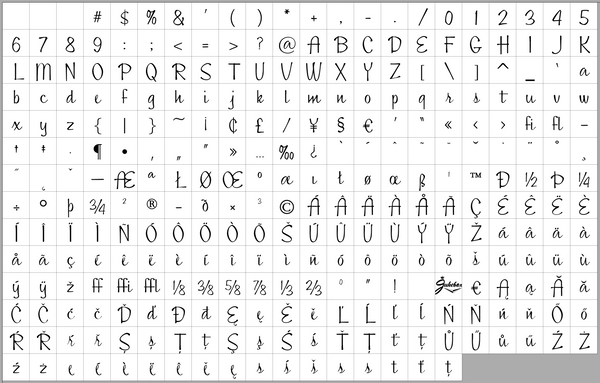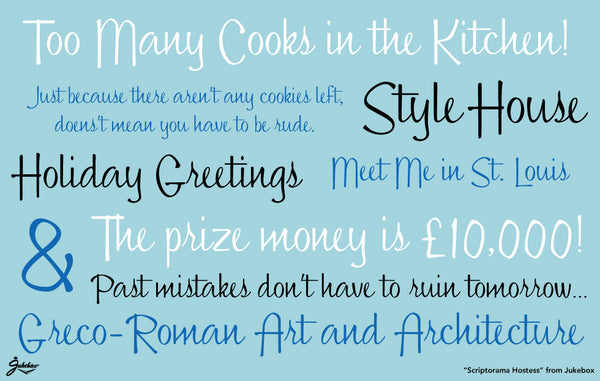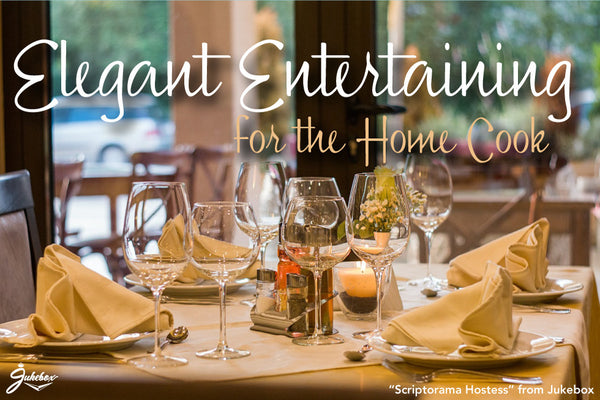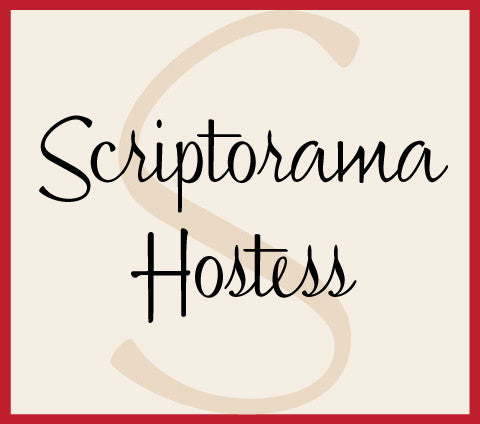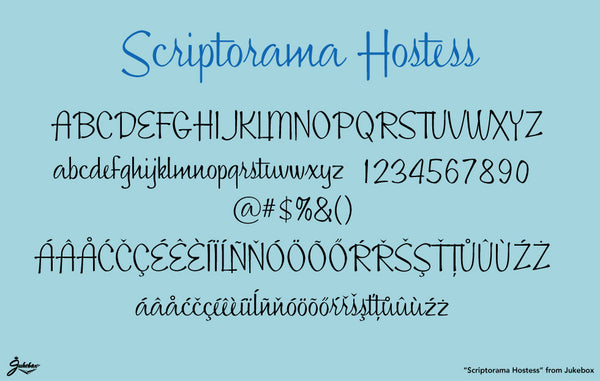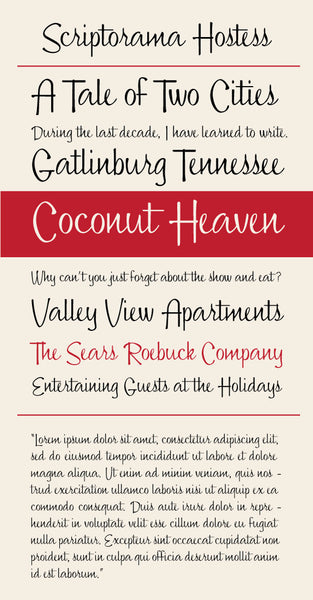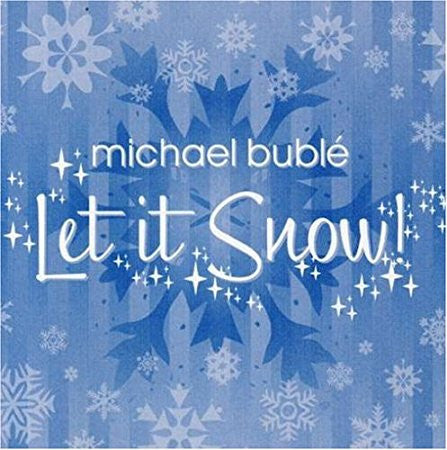
Scriptorama Hostess
Scriptorama Hostess is a fun and elegant script font from Jukebox based on a hand-lettered logotype from the 1960s. Full of mid-century modern charm, this retro style font will add a touch of flair to any design… It harkens back to the days of martinis and starburst clocks!
Notable Use: Scriptorama Hostess was used on the cover of Michael Bublé's first Christmas album entitled "Let It Snow!".